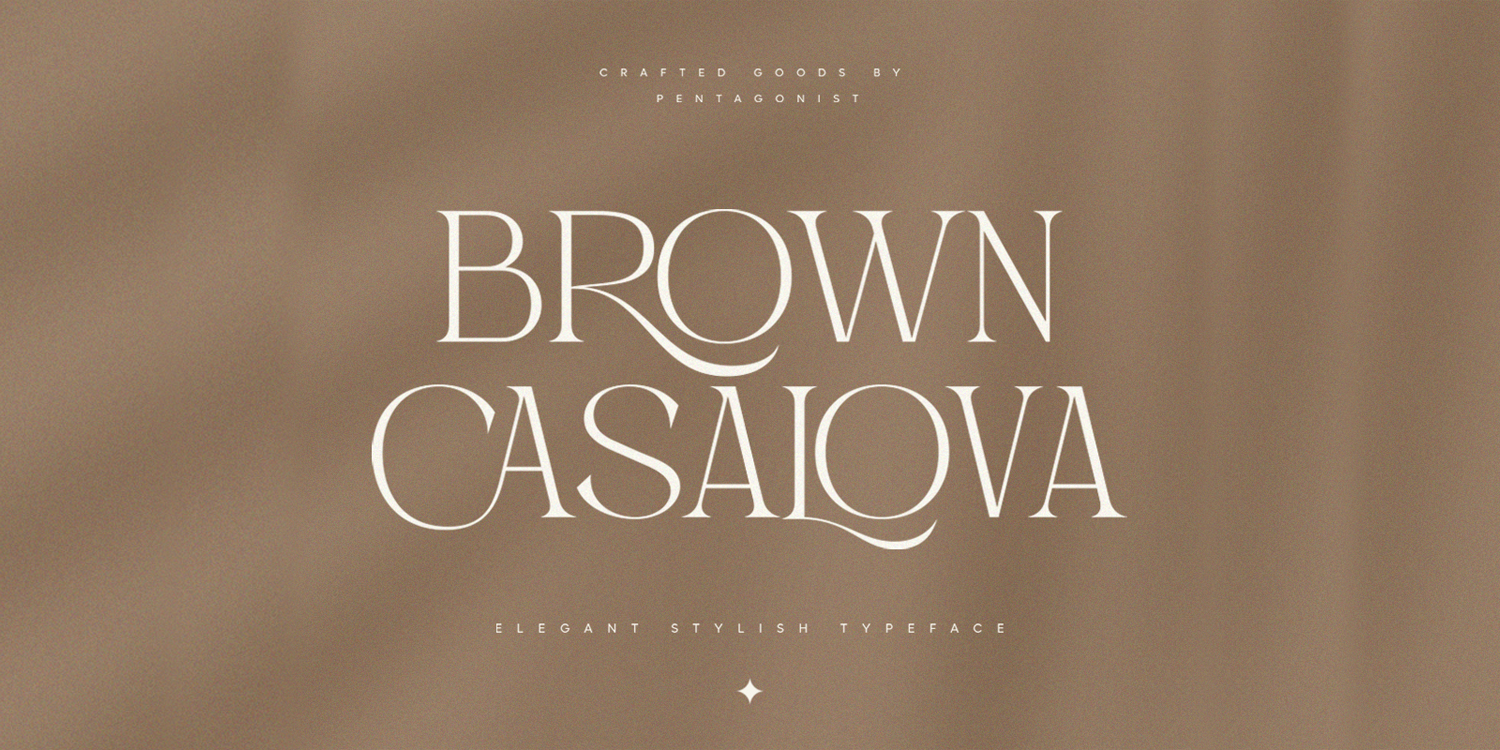
The Brown Casalova Font excels in various design applications including warm café branding, rustic romance marketing, cozy home décor communications, earthy chocolate boutique materials, warm autumn wedding identities, rustic coffee shop promotions, cozy bookstore signage, warm lifestyle brand documentation, earth-tone fashion packaging, and distinguished warm projects that demand earthy authenticity and rustic sophistication.
What makes the Brown Casalova Font exciting is its warm embodiment of earthy romance and rustic elegance through letterforms that capture the essence of rich chocolate tones and the cozy comfort of autumn warmth. This typeface demonstrates exceptional warmth through carefully crafted characters that suggest the rich texture of brown earth, the comforting embrace of warm beverages, and the intimate coziness that makes brown color palettes so emotionally soothing and visually inviting. The font's brown personality makes it perfect for lifestyle brands and cozy businesses seeking to communicate earthy authenticity, rustic warmth, and the kind of natural comfort that creates memorable cozy experiences through typography that literally embraces with brown warmth.
The Brown Casalova Font family typically includes warm weight variations that enhance the earthy aesthetic, featuring rustic styling options and extended character sets optimized for cozy communications and lifestyle applications. These family options often include earth-inspired alternates, warm symbols, and rustic decorative elements that provide designers with comprehensive tools for creating authentically warm typography that celebrates earthy comfort while maintaining contemporary design appeal and lifestyle credibility.
Lifestyle professionals and cozy brand organizations consistently select Brown Casalova Font Free Download for projects requiring typography that communicates earthy authenticity and rustic sophistication. This typeface delivers exceptional performance in lifestyle marketing, cozy branding, and warm communications where establishing comfort and creating intimate earthy atmosphere is essential for lifestyle engagement. The font's brown character makes it particularly effective for café and home décor applications. Download Brown Casalova Font Free Download today to access this warmly rustic typeface that transforms cozy communications with its earthy elegance and brown sophistication, creating compelling lifestyle experiences that honor the magnificent comfort of earth tones while celebrating the rustic warmth that defines authentic cozy culture and brown excellence.